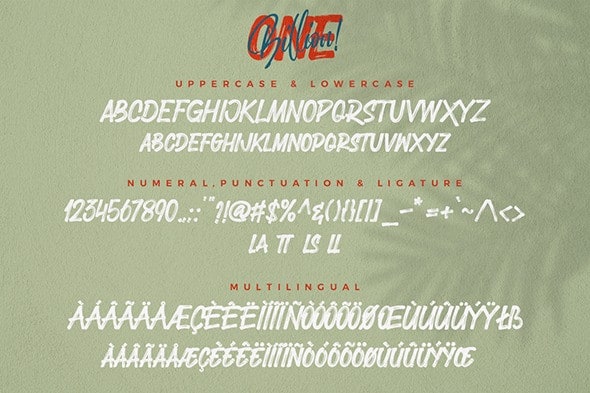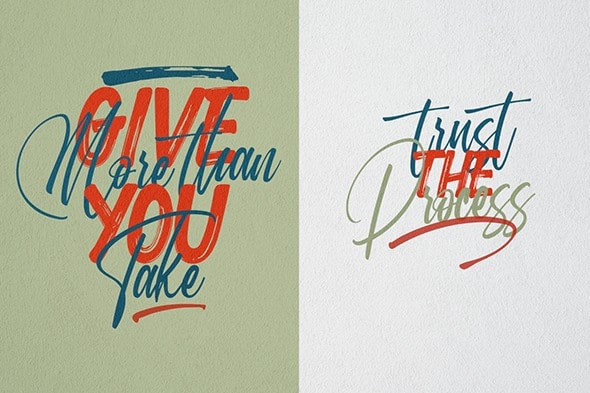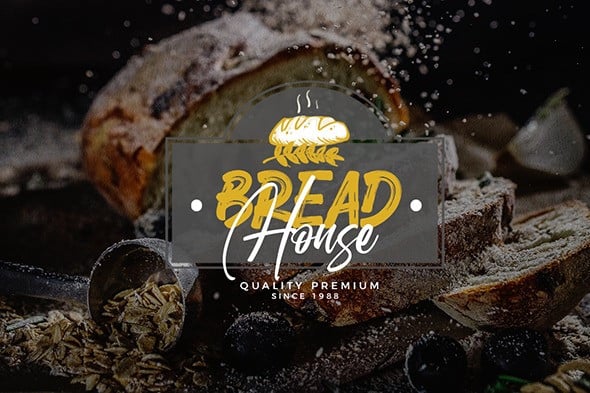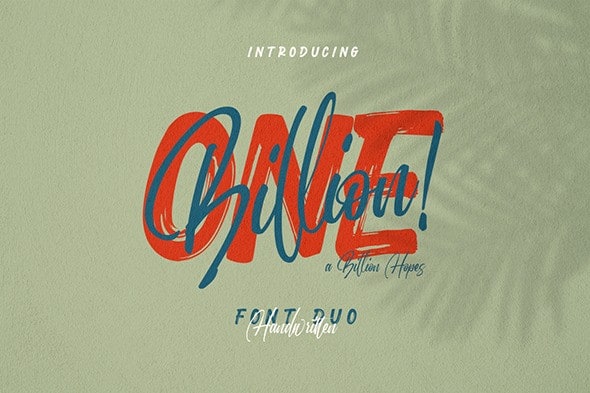
Onebillion Script Font Duo
Onebillion Script Font Duo – Free Demo is an exclusive font family with two different styles. This font has a great characters set, perfectly managed with well spaced and kerning. It’s offers you a multitude of possibilities in your professional type design projects. Perfect for making a statement, It’s couple to make beautiful typography designs – perfect for branding, posters, books covers, social media, merchandise and so much more.